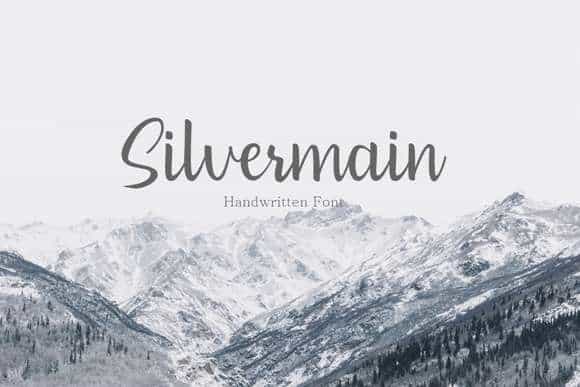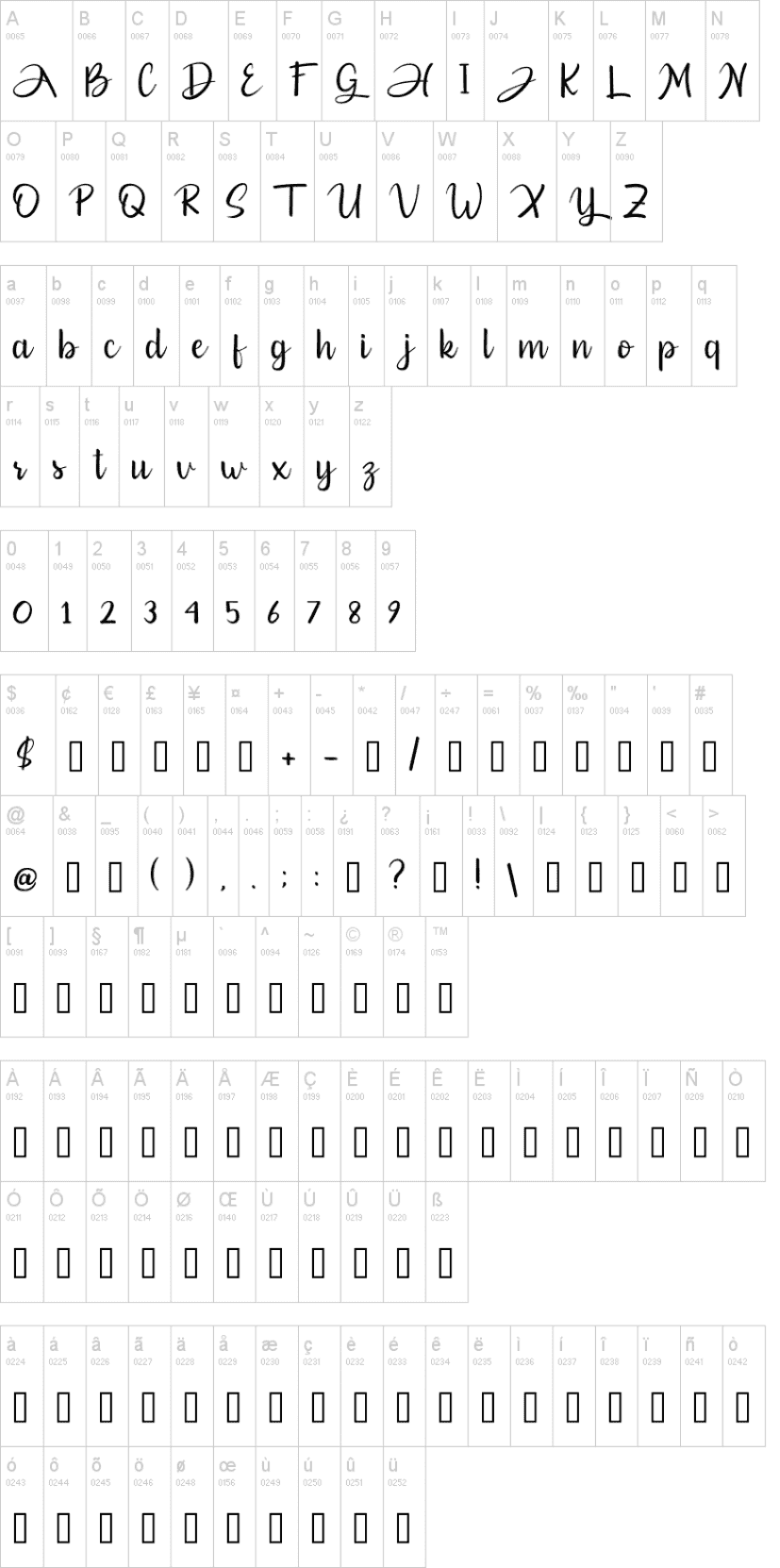
The Silvermain is a beautiful font that has been made by hand and is perfect for calligraphy. It has clean and elegant letters and is perfect for business cards, quotes, greeting cards, posters, and many others.